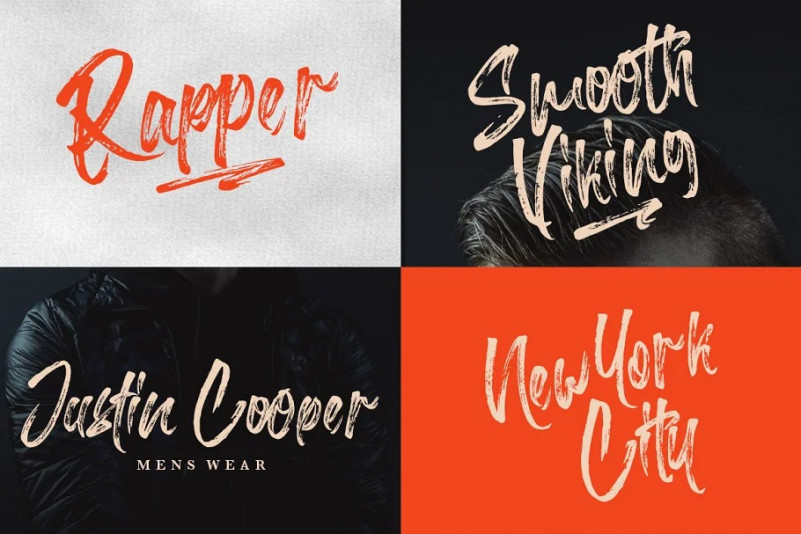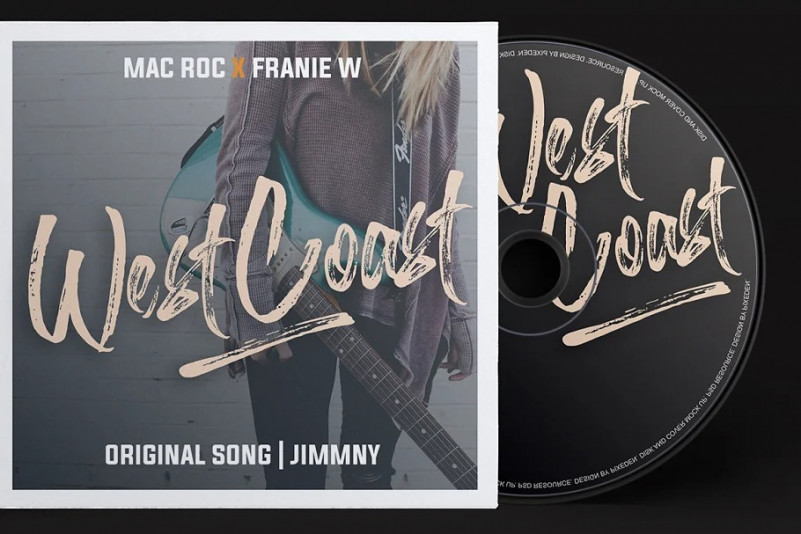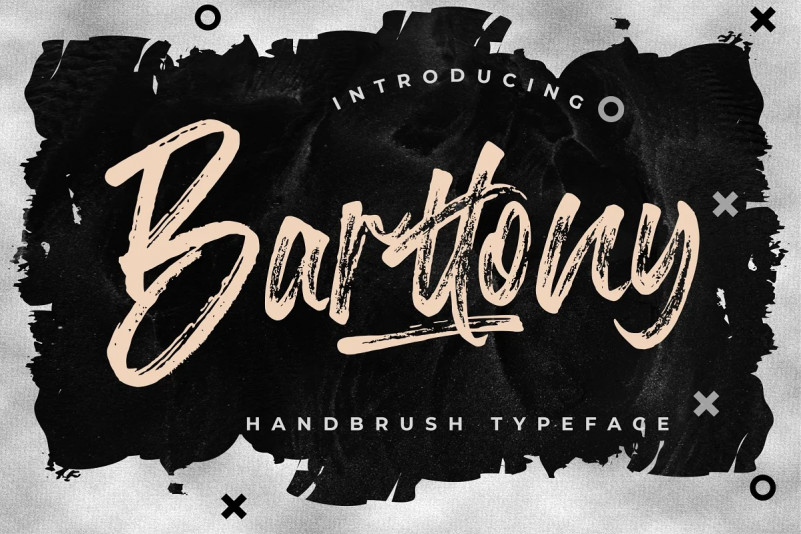
Barttony Font
Introducing Barttony – A hand brush font with bold textures looks so natural and modern. This font will looks awesome and amazing in many way to your latest project. The font is perfect for movie title, logo, blogging, brand identity, book title, social media, branding, wedding invites, cards or simply use it in your next design project and suitable to use for many occasion.